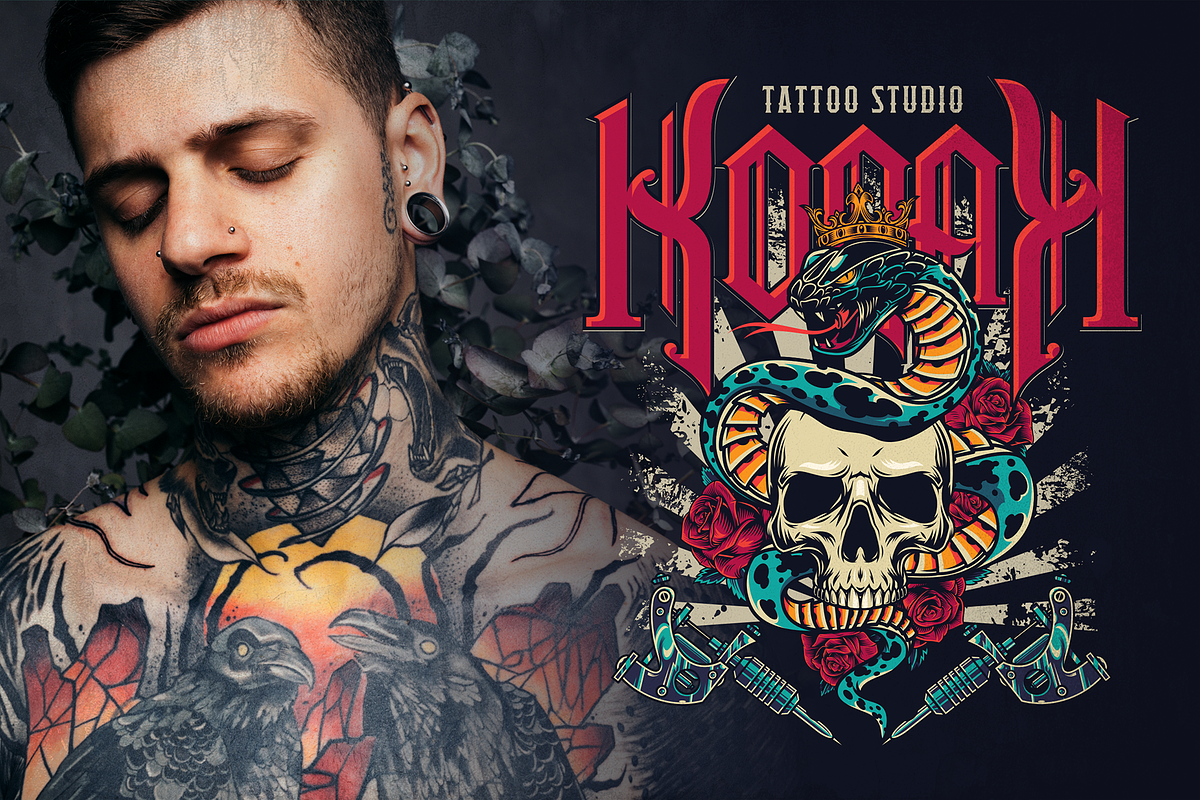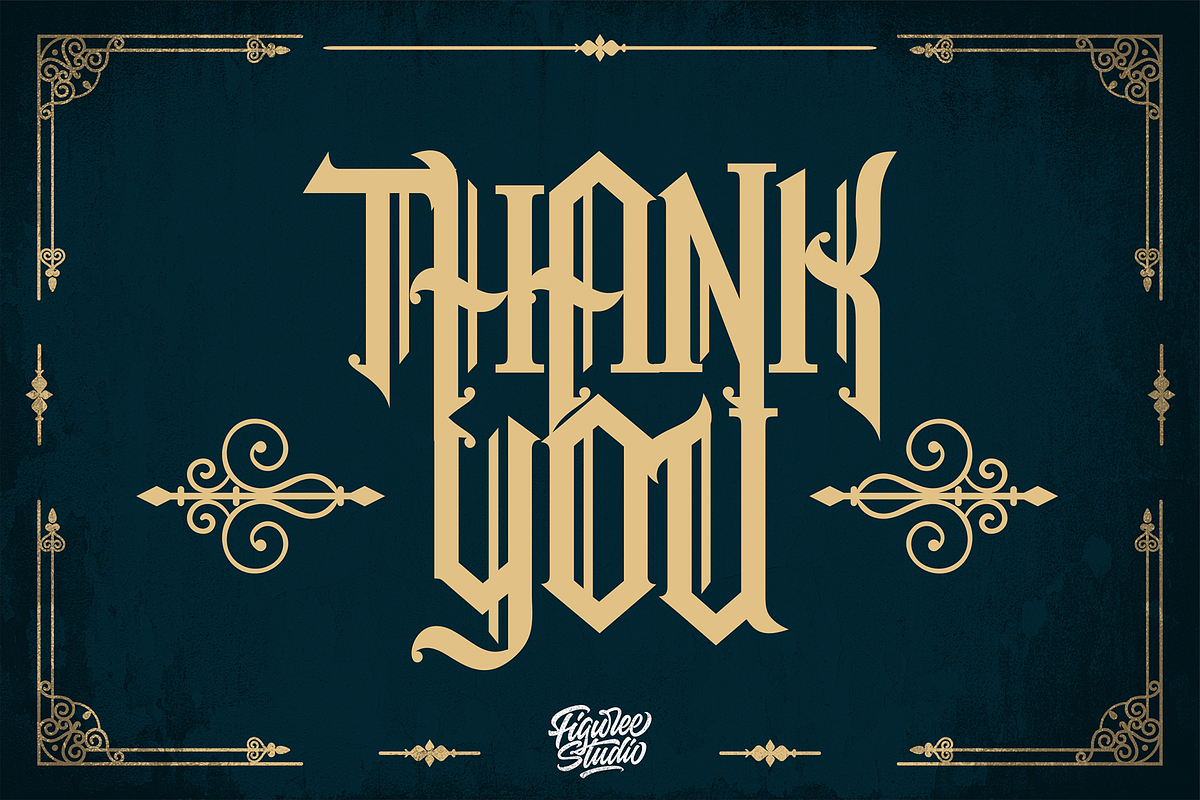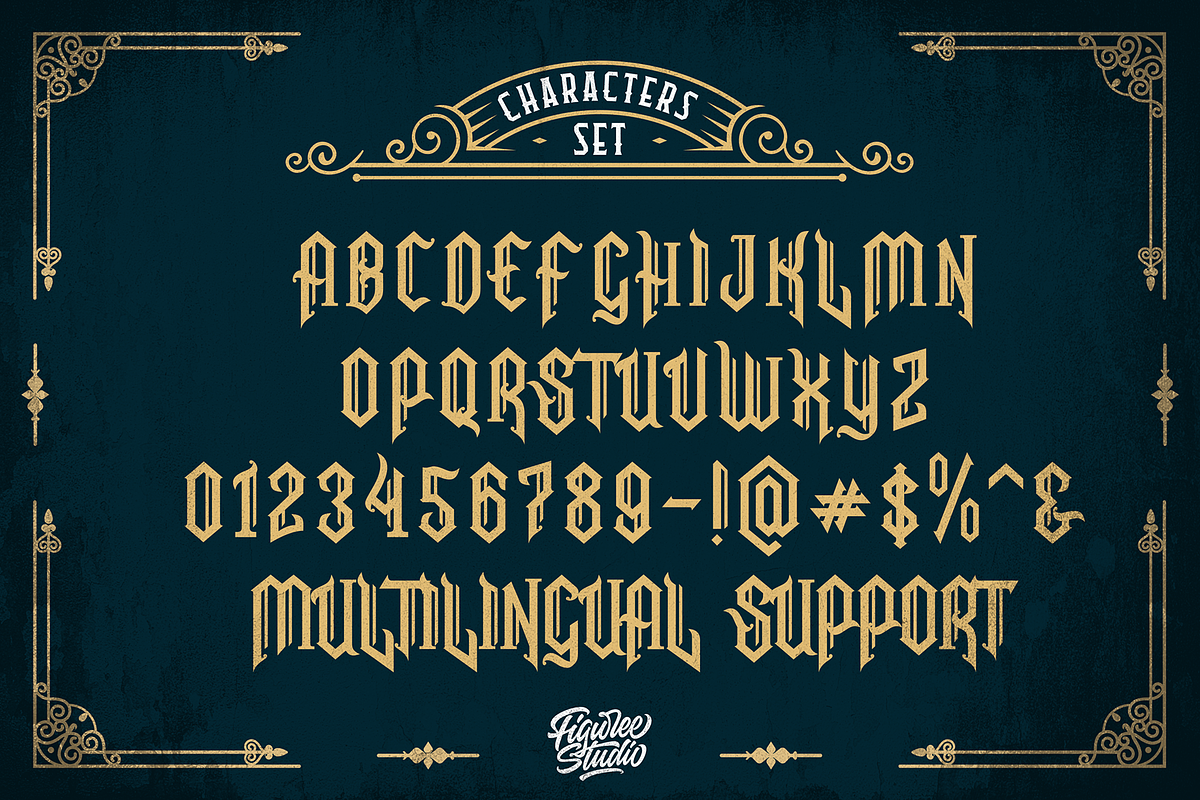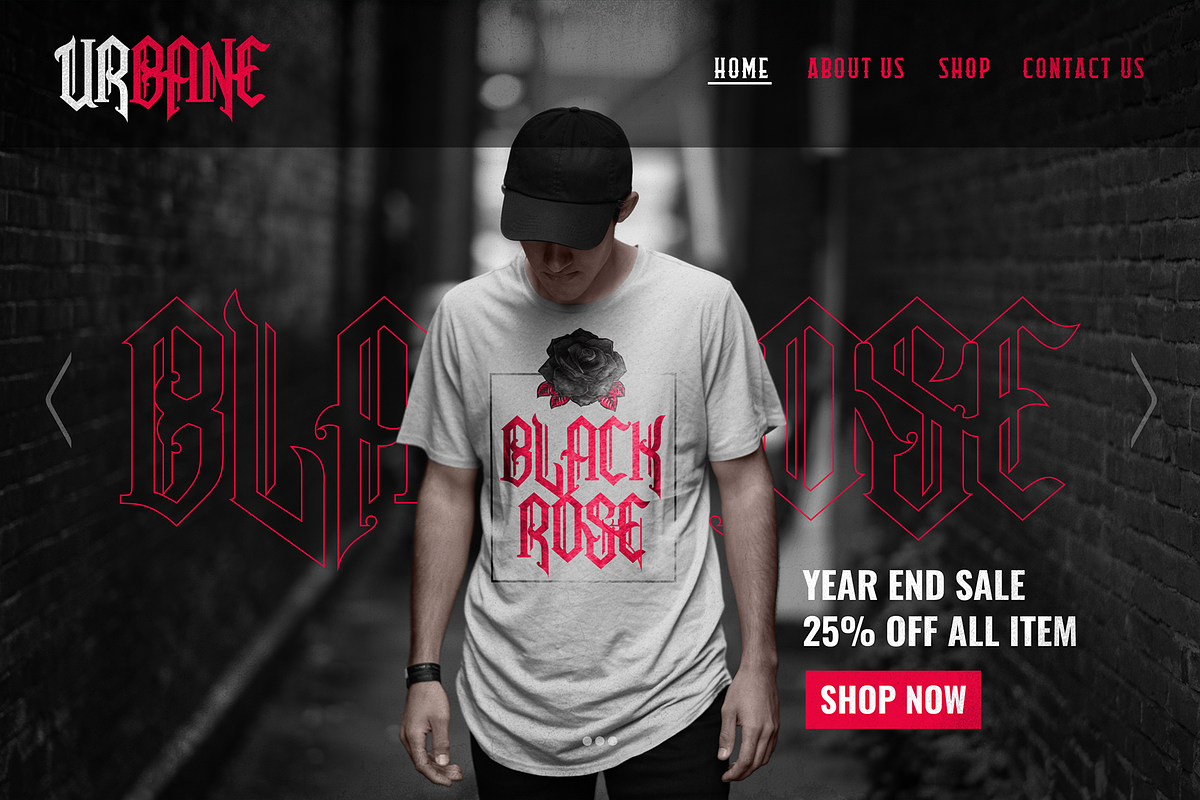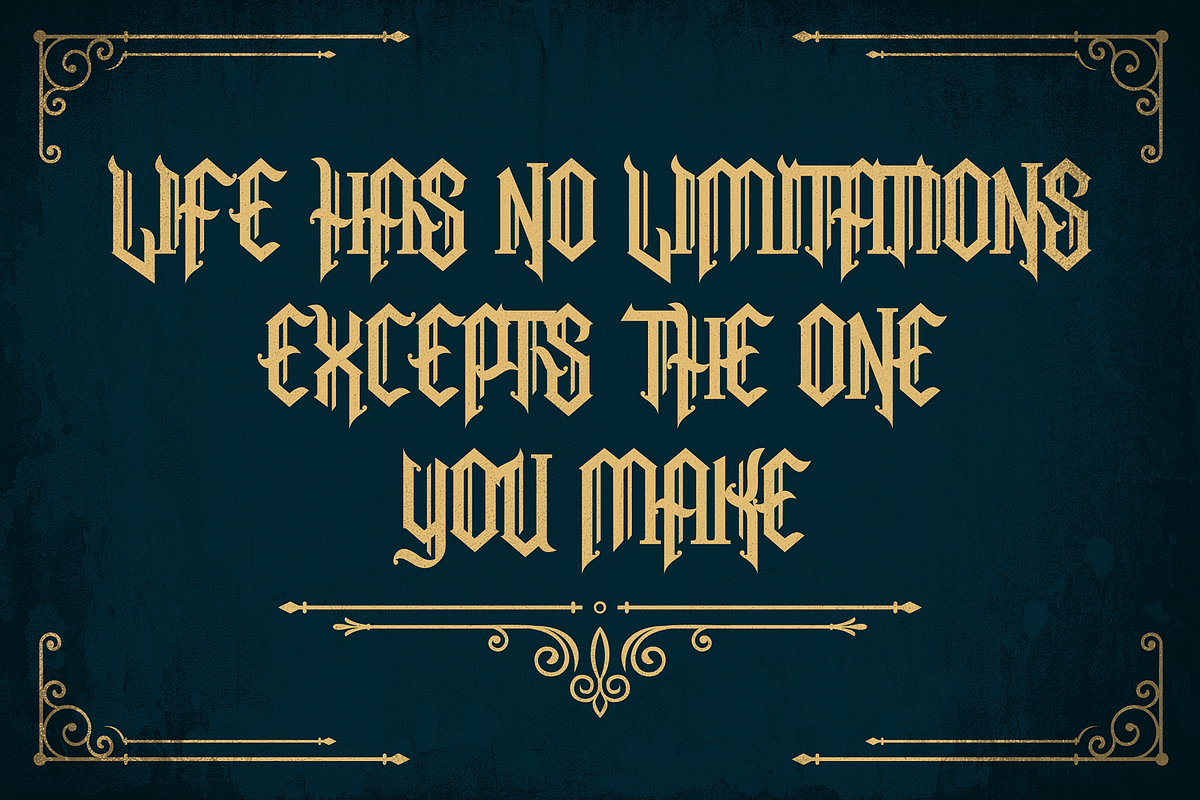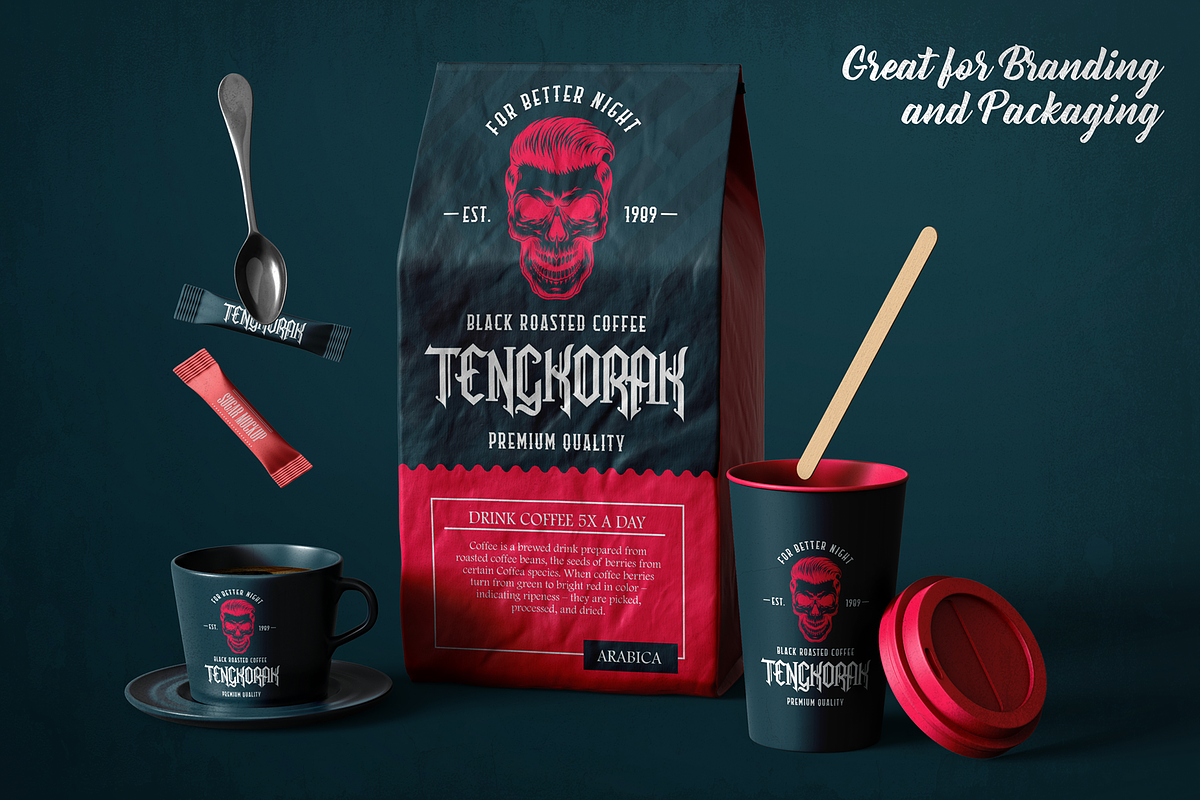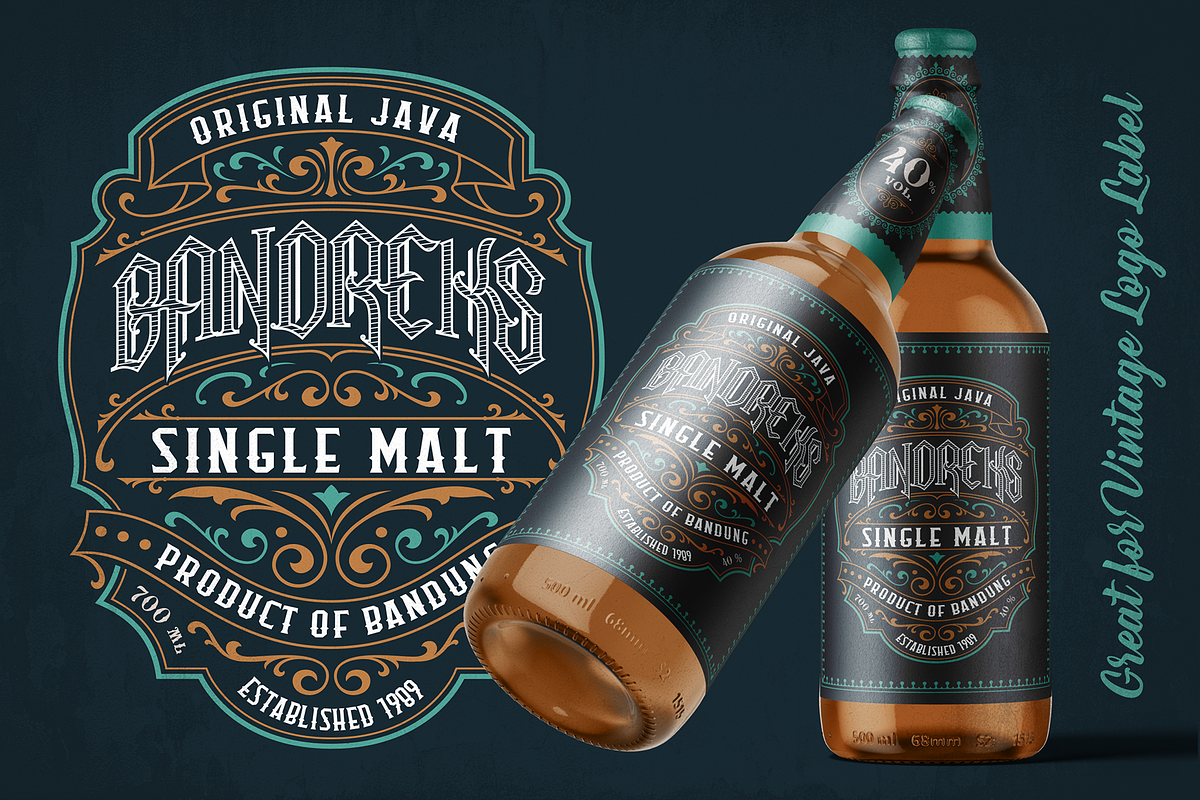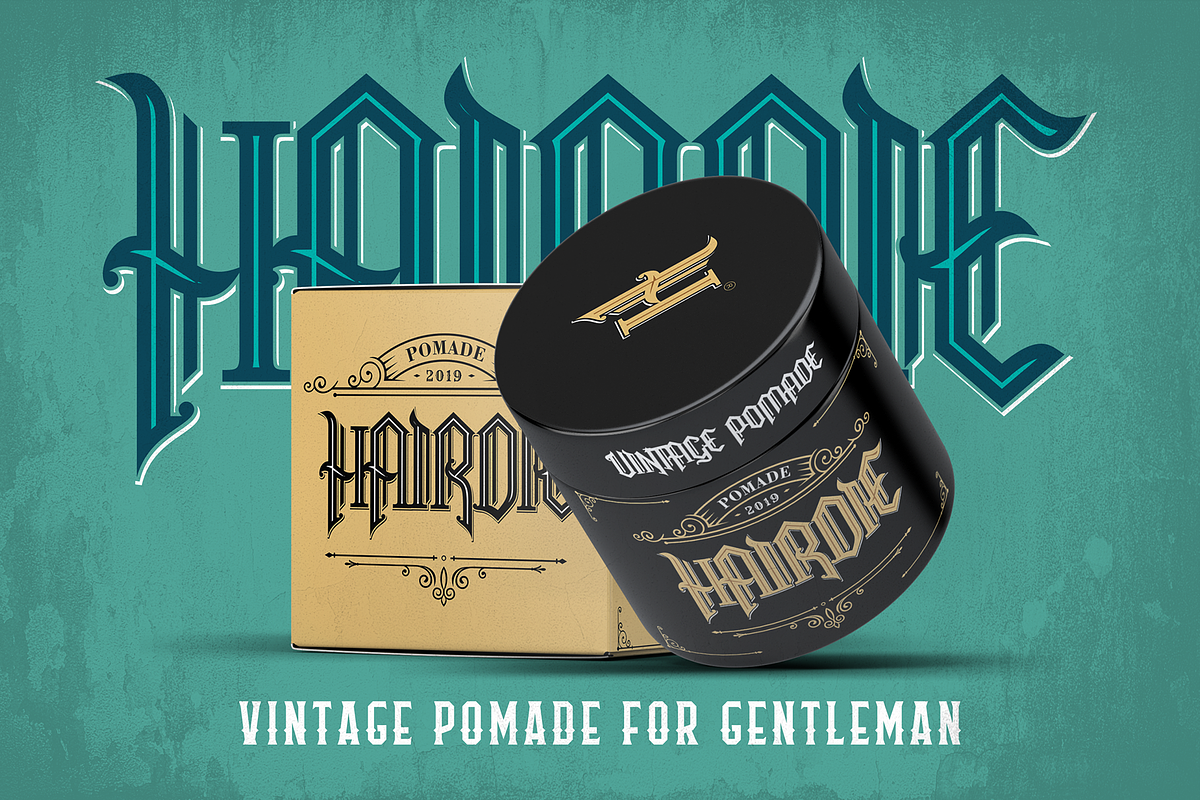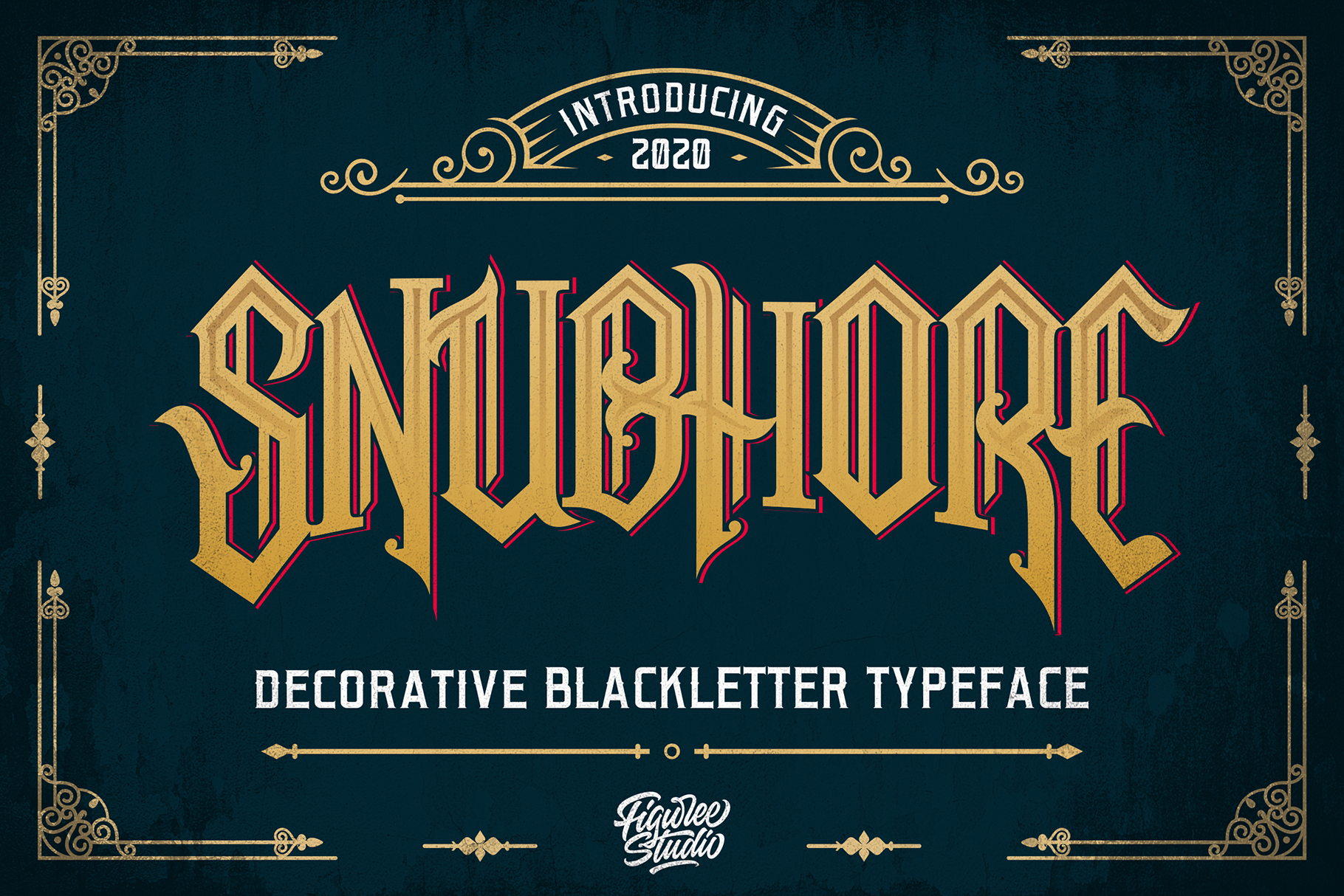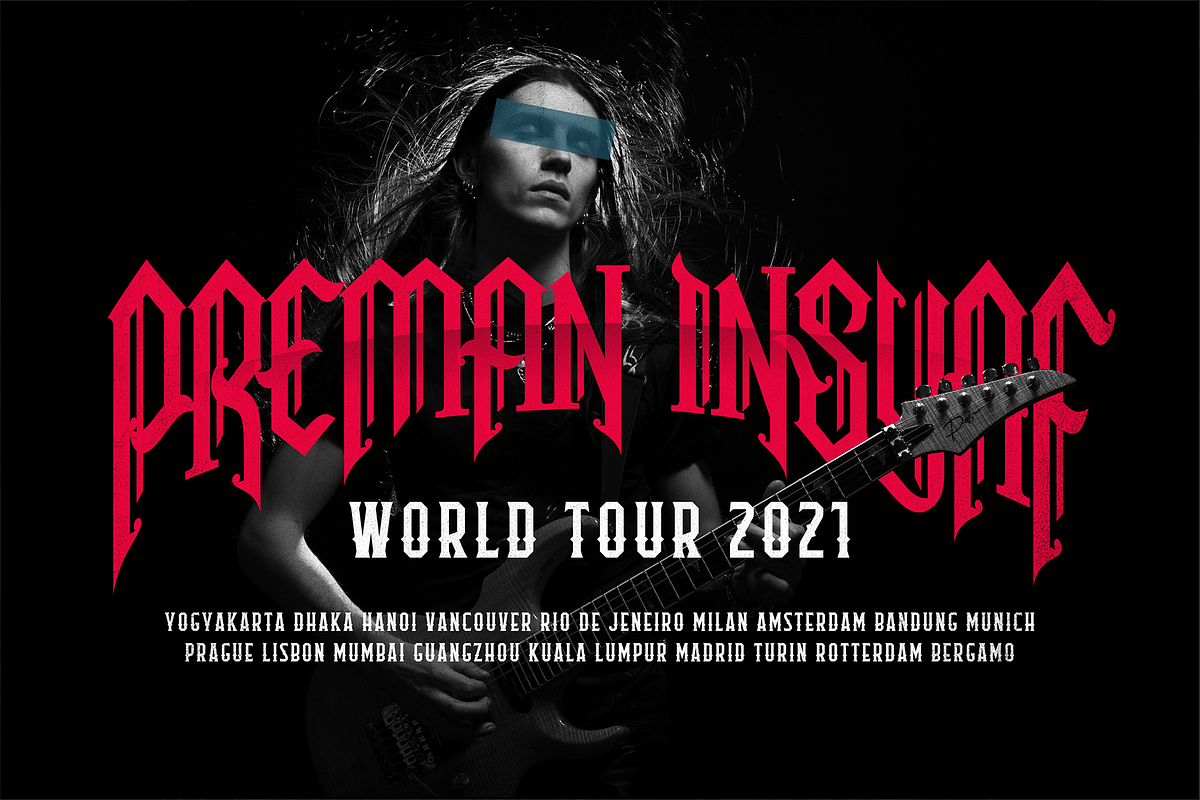
Snubhore - Gothic Typeface
Introducing Snubhore Gothic Blackletter Font, unique gothic blackletter for your design. Perfect for tattoos clothing, labels and packaging, branding, or any Gothic-themed projects!
- Versatile for branding, headline, or printing product